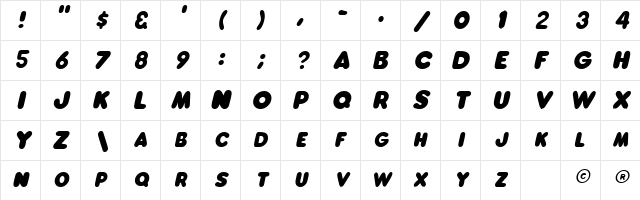
DunkinSCapsSSK is a composed and adaptable typeface that performs quietly and consistently across a wide range of design contexts. The slanted form adds forward momentum and visual energy.
Pro Tip: Use DunkinSCapsSSK for emphasis, pull quotes, and subheadings where its slanted energy can add rhythm to the layout.